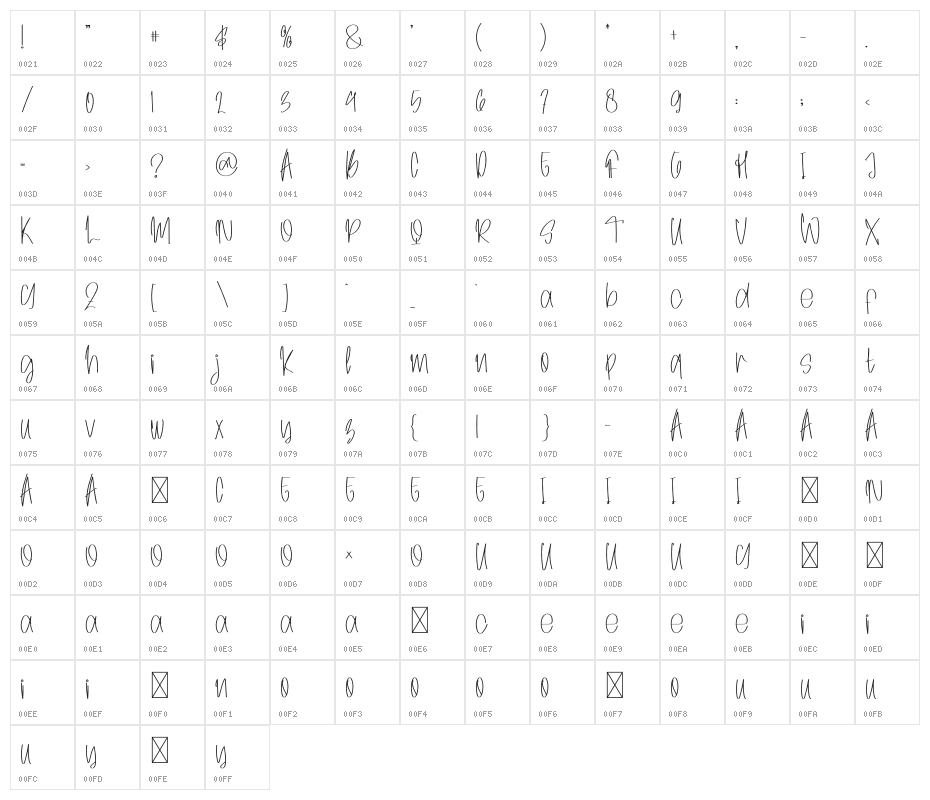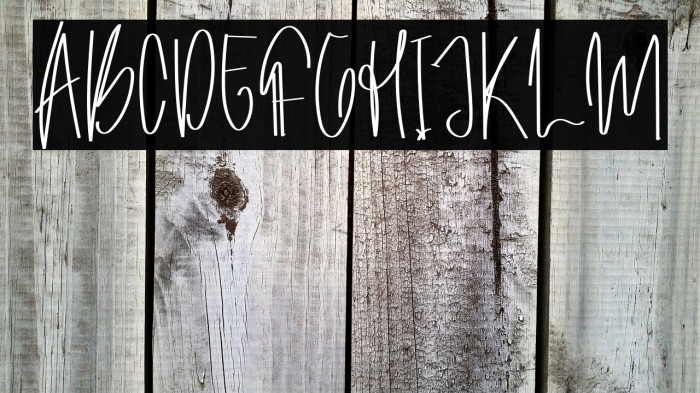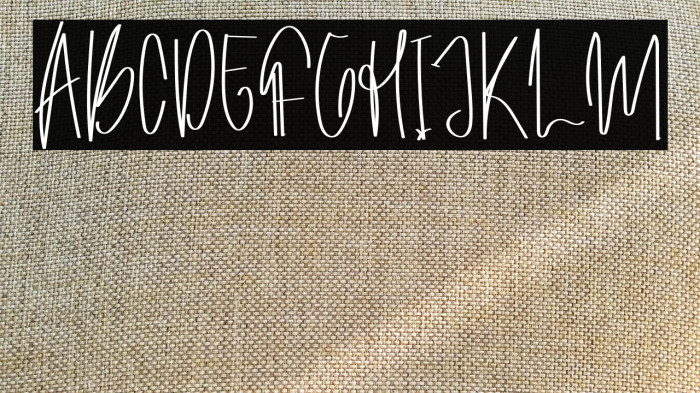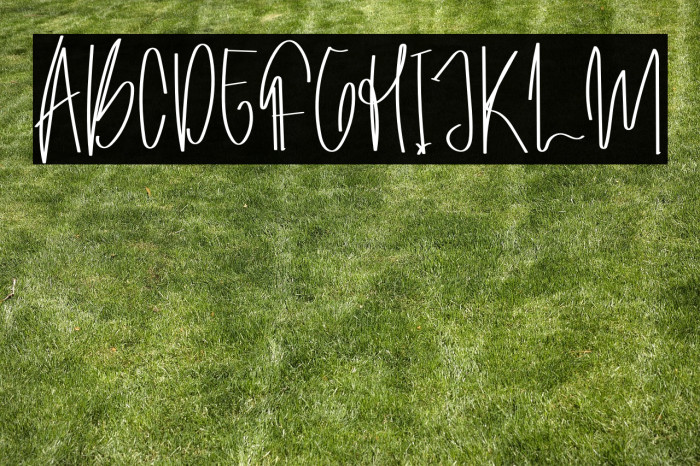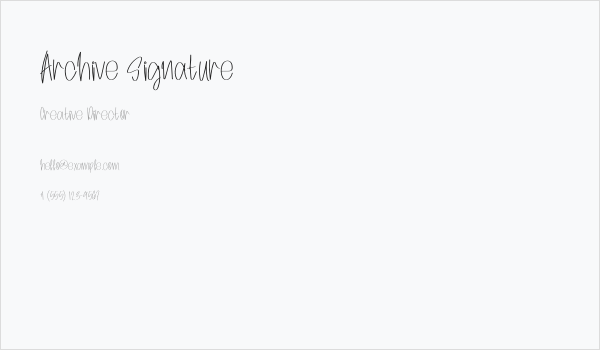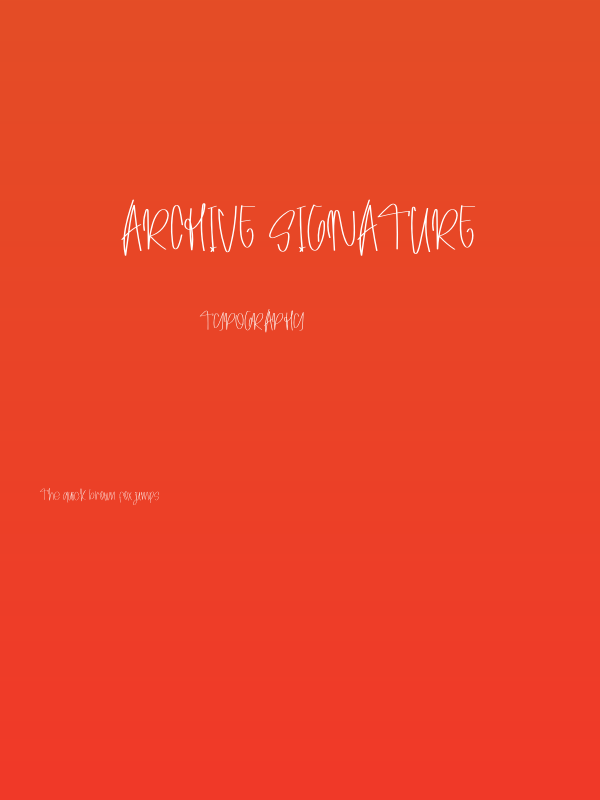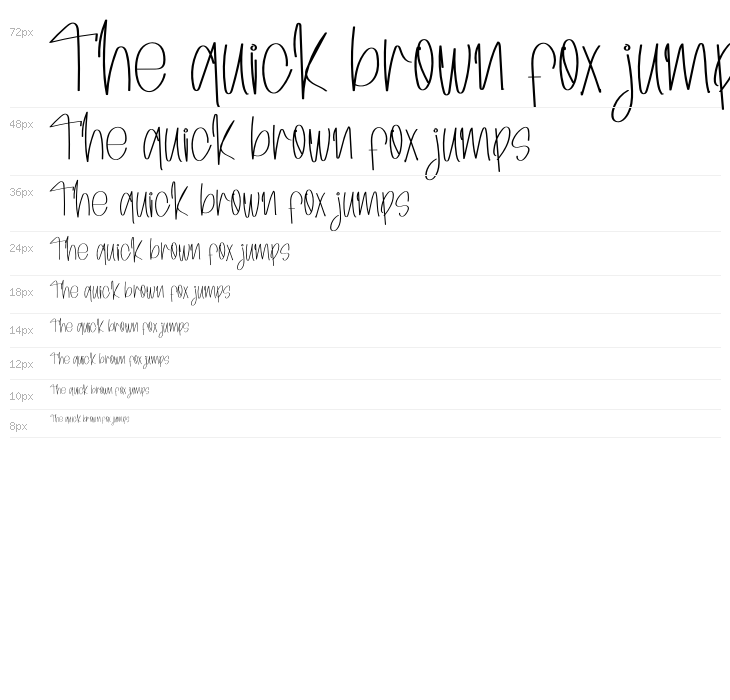
Archive Signature Font
Archive Signature Description
This font features a playful and whimsical handwritten style, characterized by its tall, narrow letterforms and irregular strokes. The uppercase letters exhibit a unique blend of straight and curved lines, giving them a dynamic and lively appearance. The lowercase letters maintain a consistent flow, with some letters extending slightly below the baseline, adding to the casual aesthetic. Numbers and special characters follow the same design principles, ensuring a cohesive look across all glyphs. The overall style is informal and artistic, making it suitable for creative projects that require a personal touch.
| Width | Condensed |
| Use Case | Logos, Headlines, Creative projects |
| Proposed Projects | Ideal for greeting cards, invitations, children's books, and creative branding projects. |